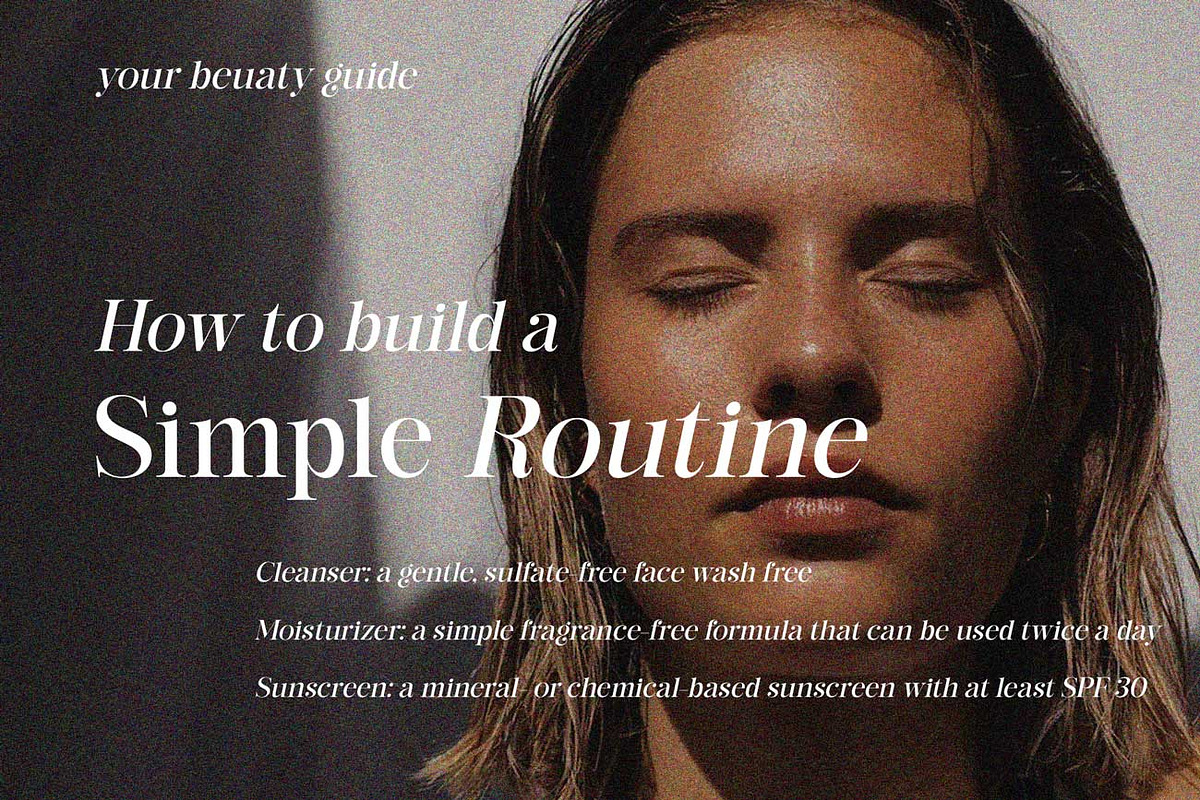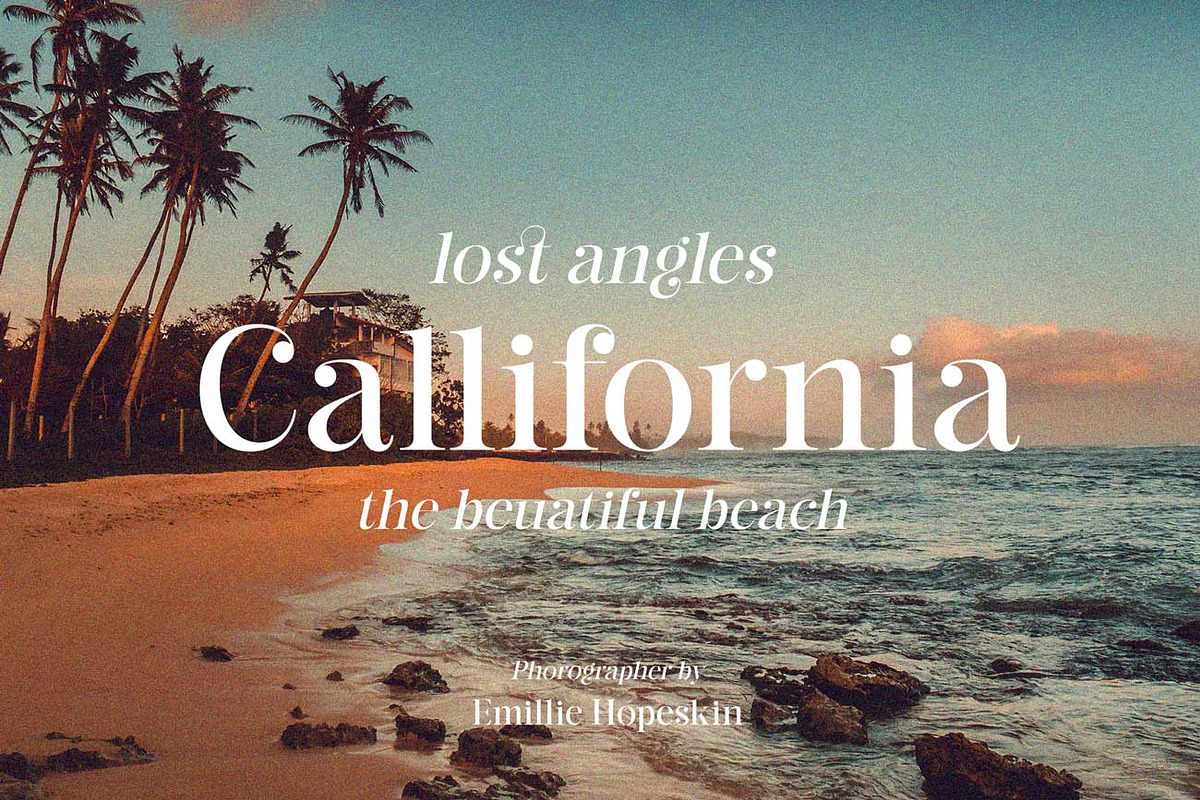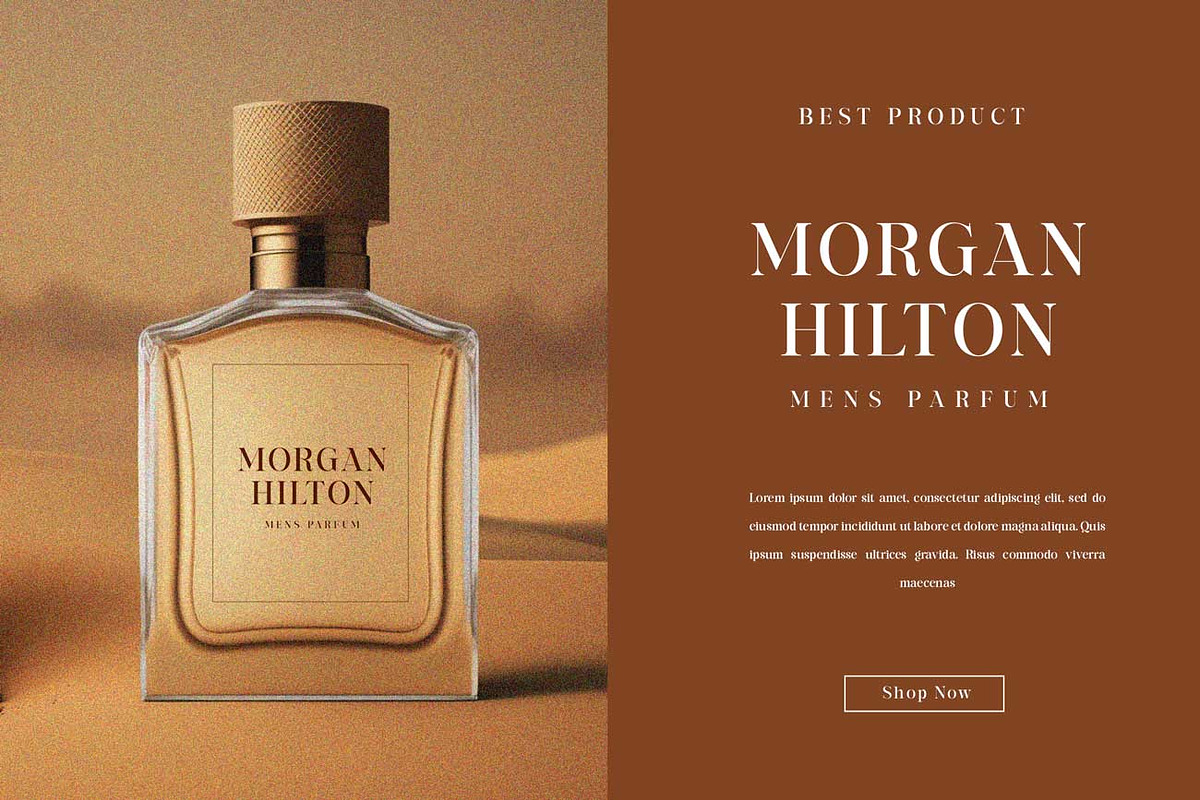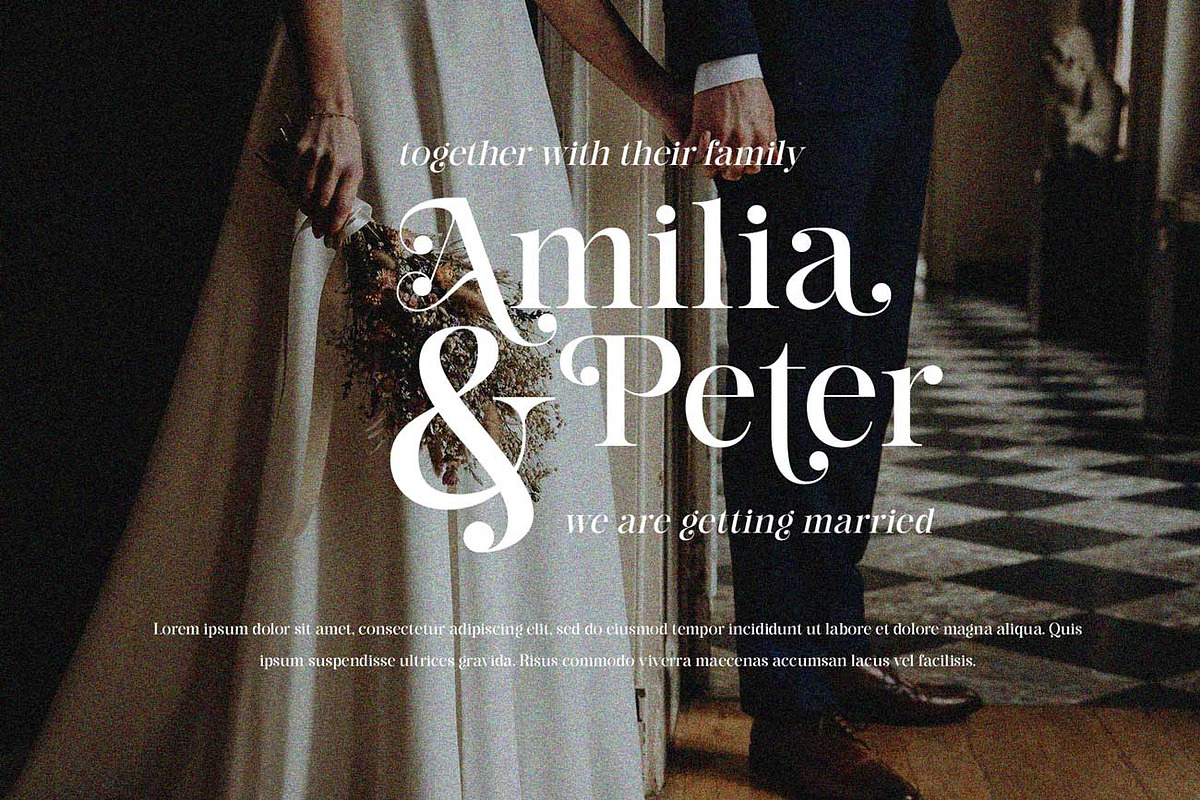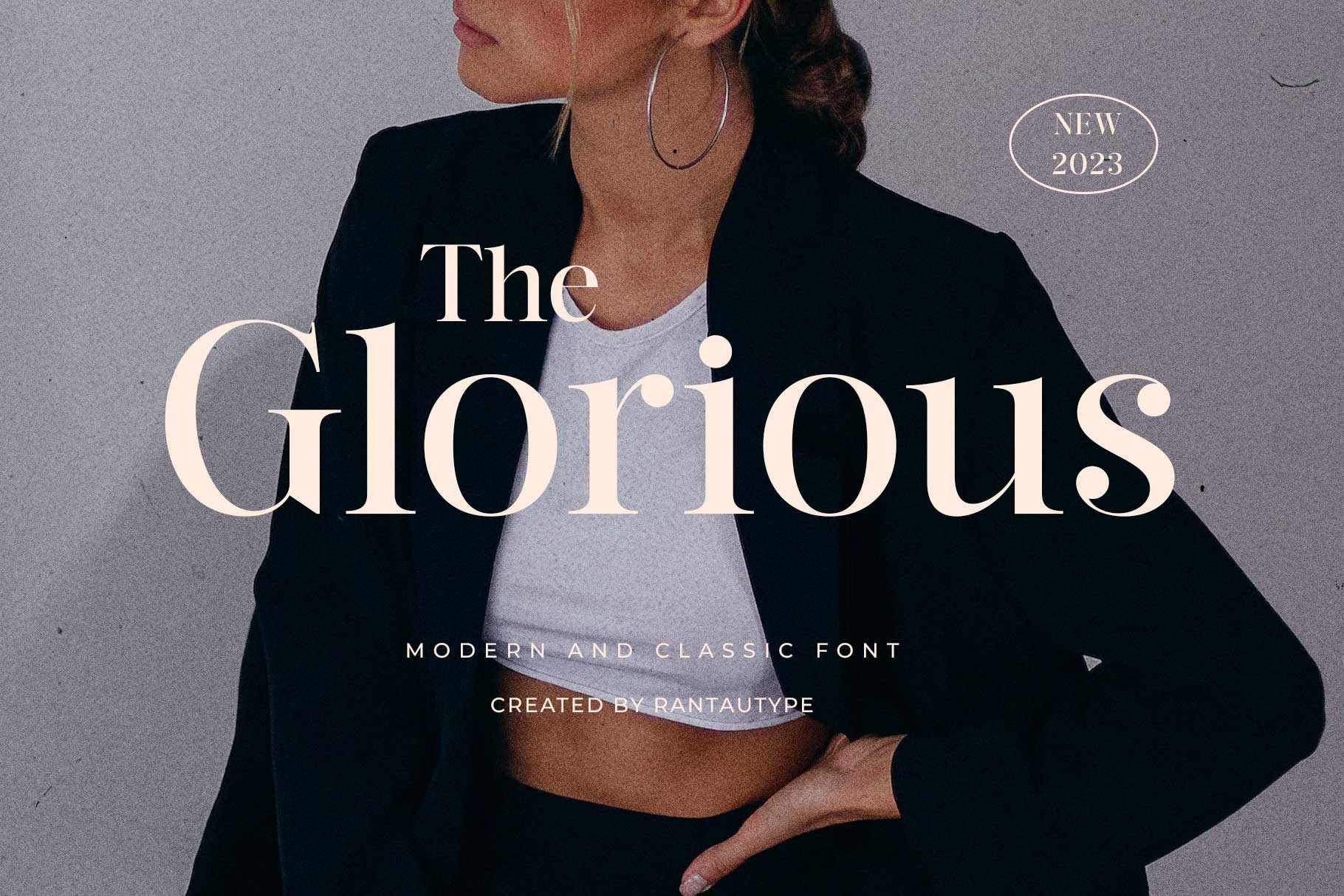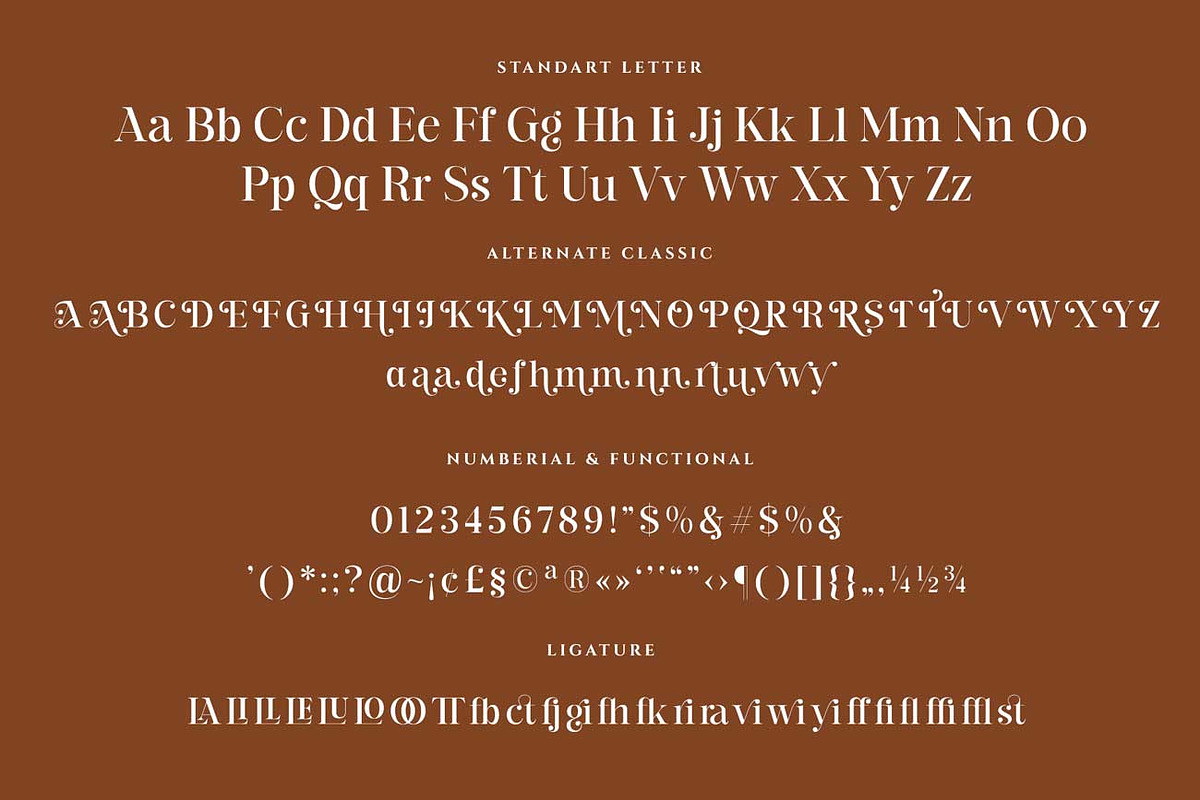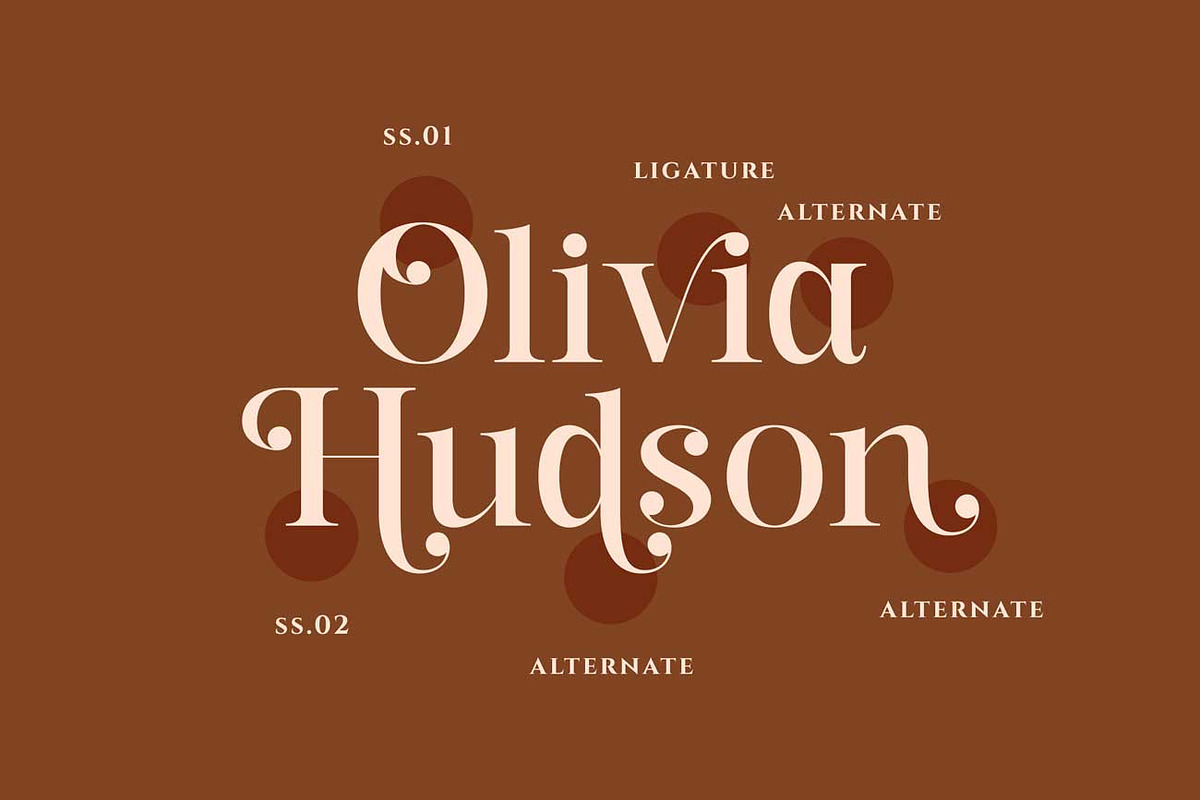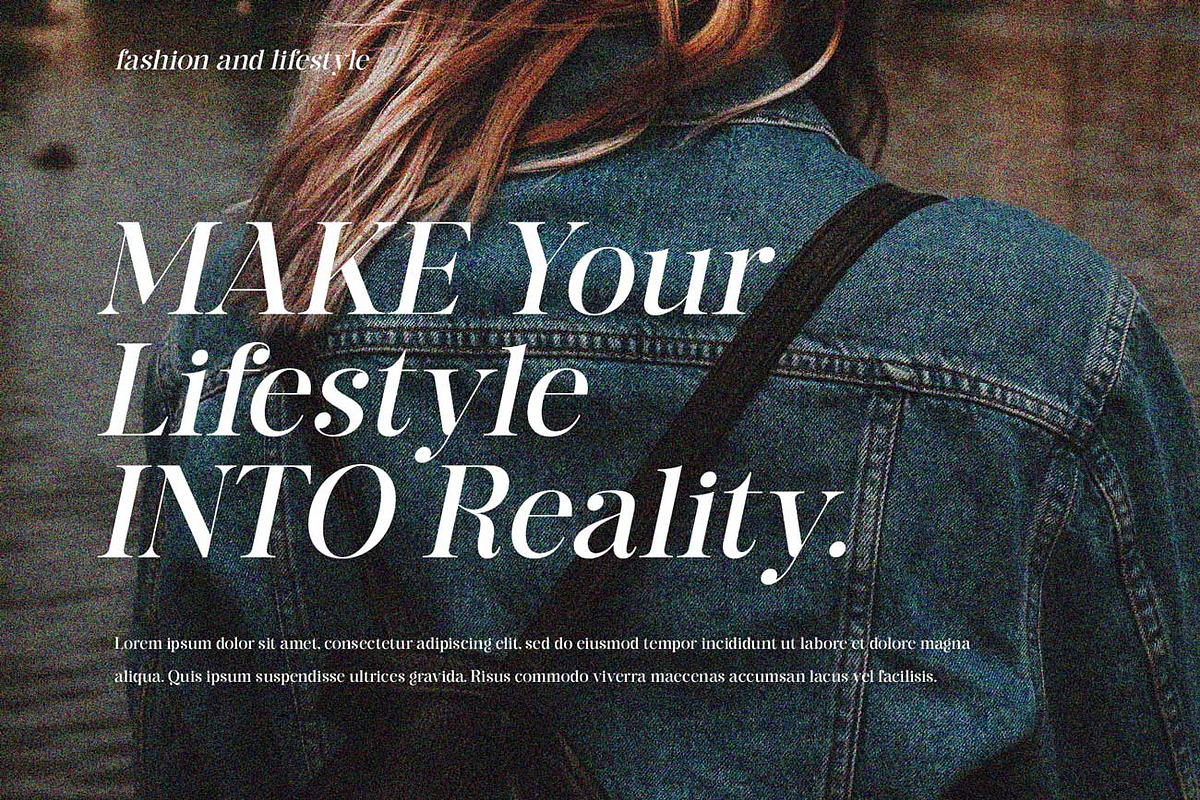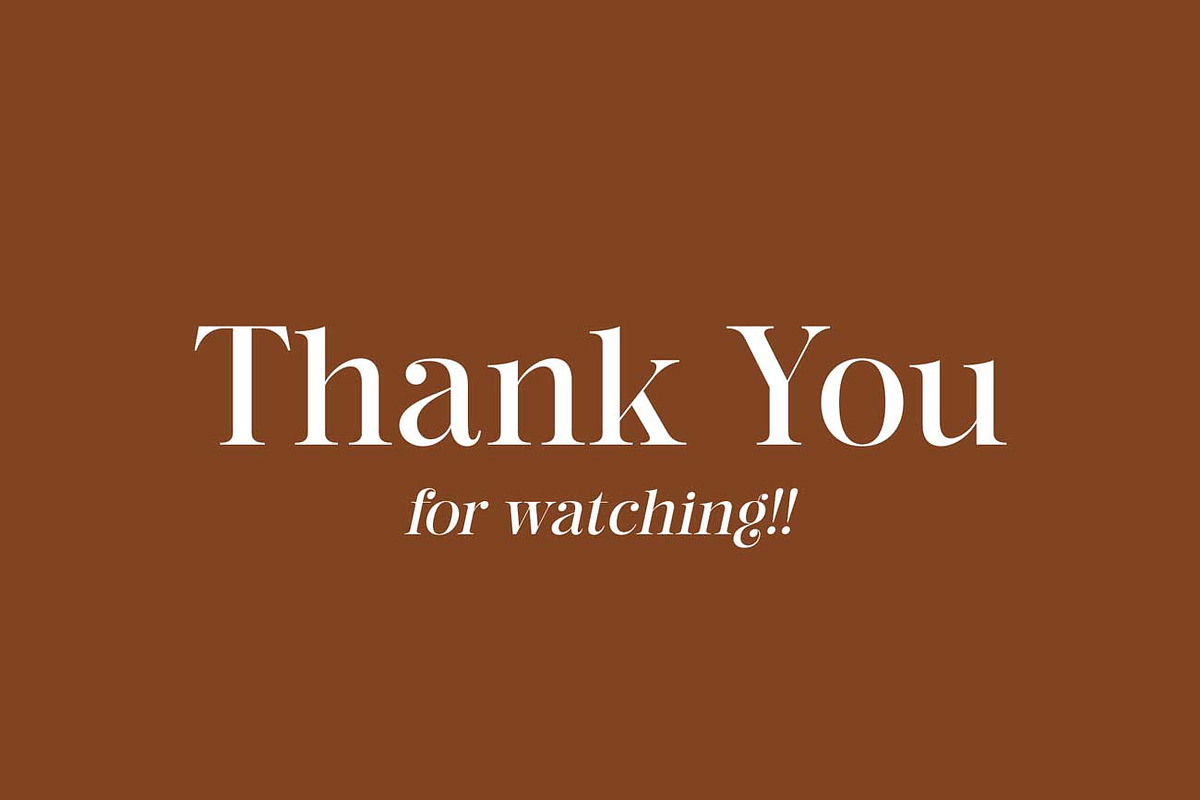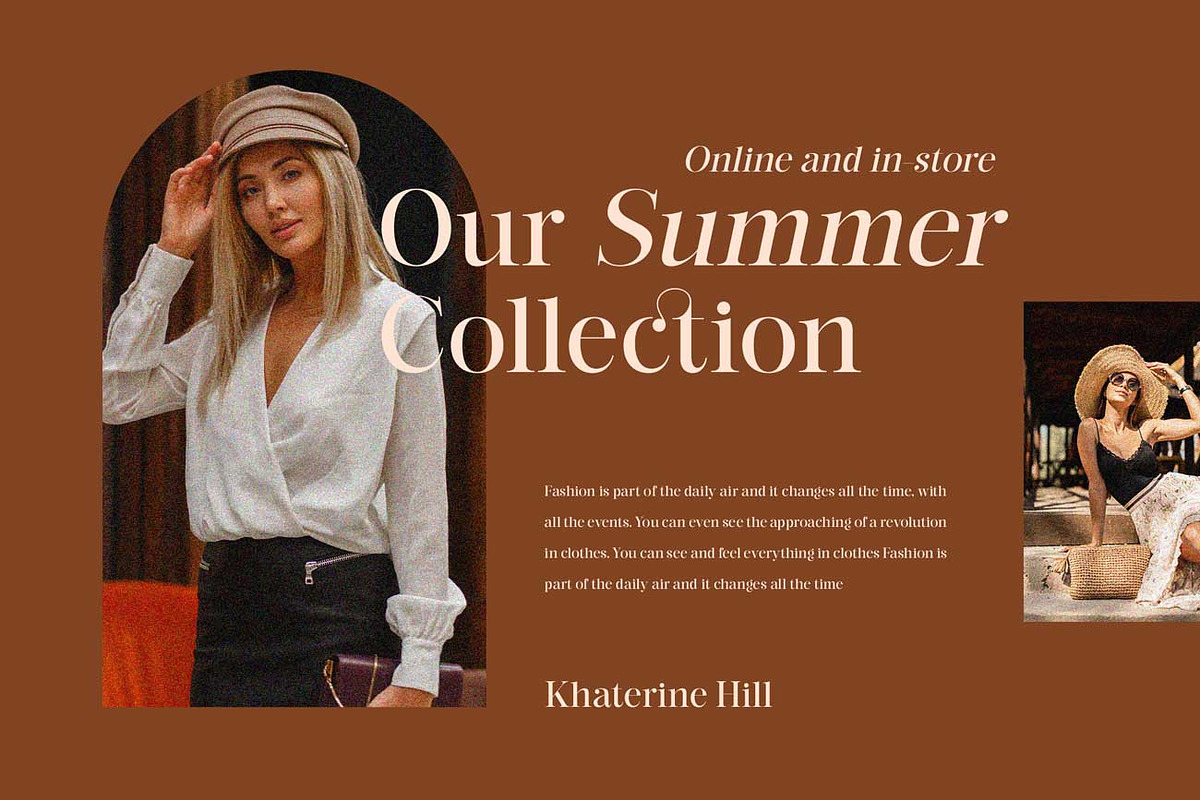
The Glorious - Modern & Classic font
Hi Ladies and Gentleman ! Introducing modern feat classic font “The Glorious”, The Glorious is a beuatiful upper and lower modern or nostalgic serif - with a complementary italic version.
The alternate can make to classic or stay on modern. it's to good to make variant on your work. I've also love combination the reguler and italic make cool and nostalgic.
Let's make nostalgic with The Glorious
- Standar letter A-Z and a-z
- Alternate and ligature
- Multilinggual support